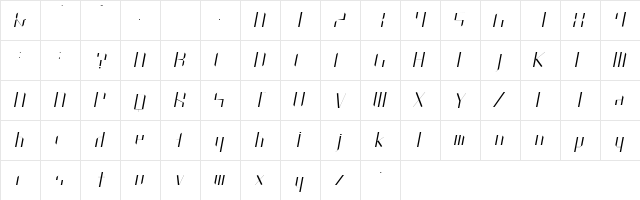
Plain Medium
Design Context for Plain Typeface
Plain is a composed and adaptable typeface that performs quietly and consistently across a wide range of design contexts.